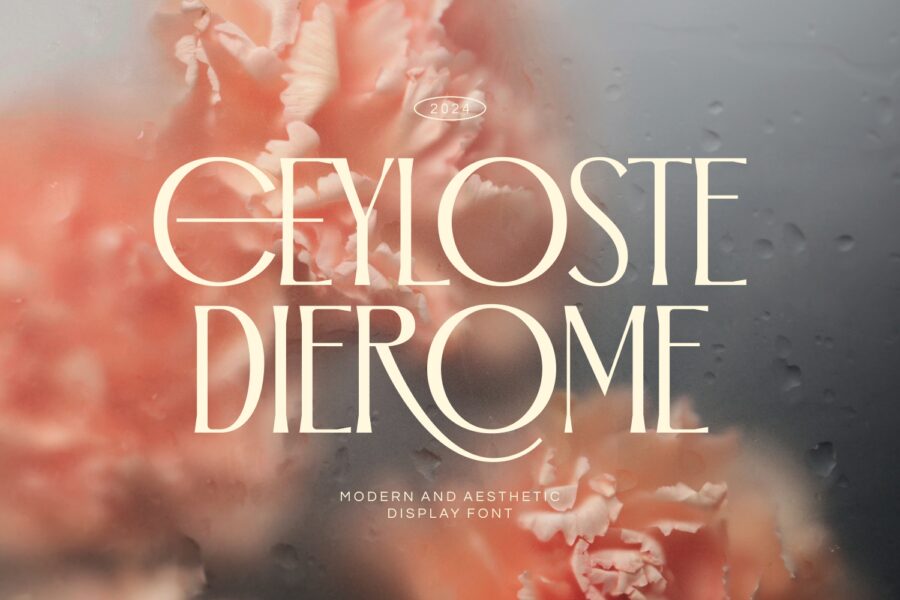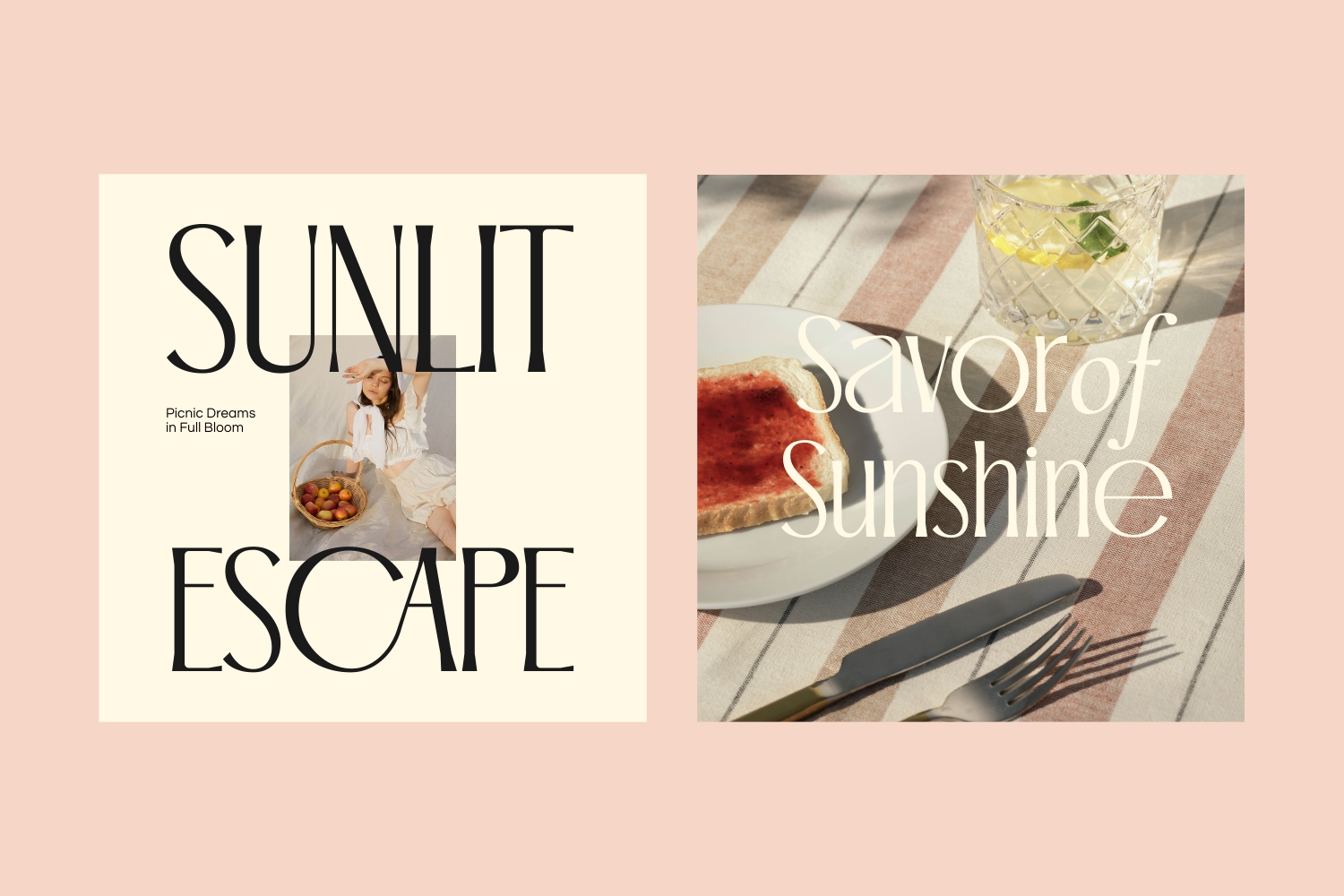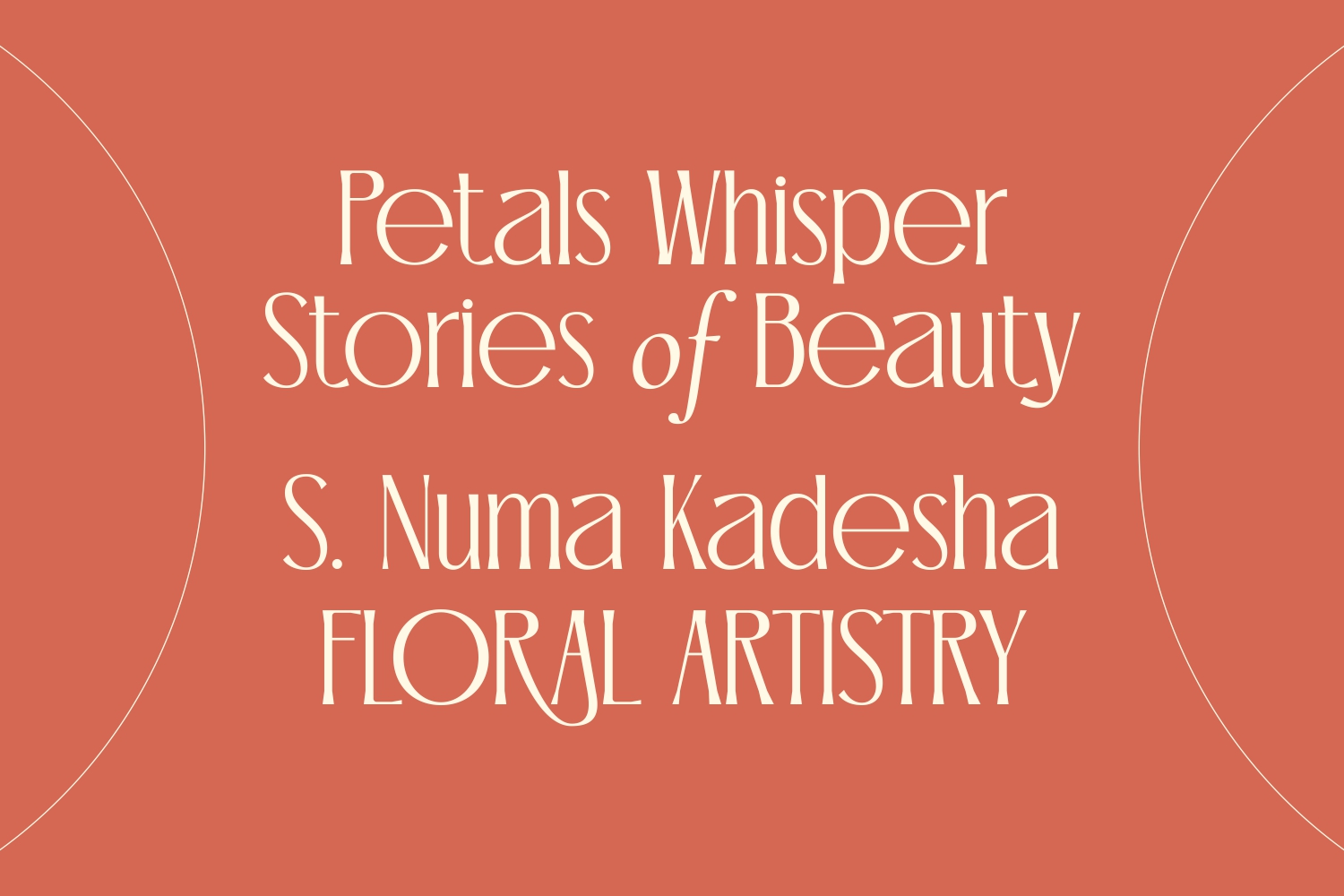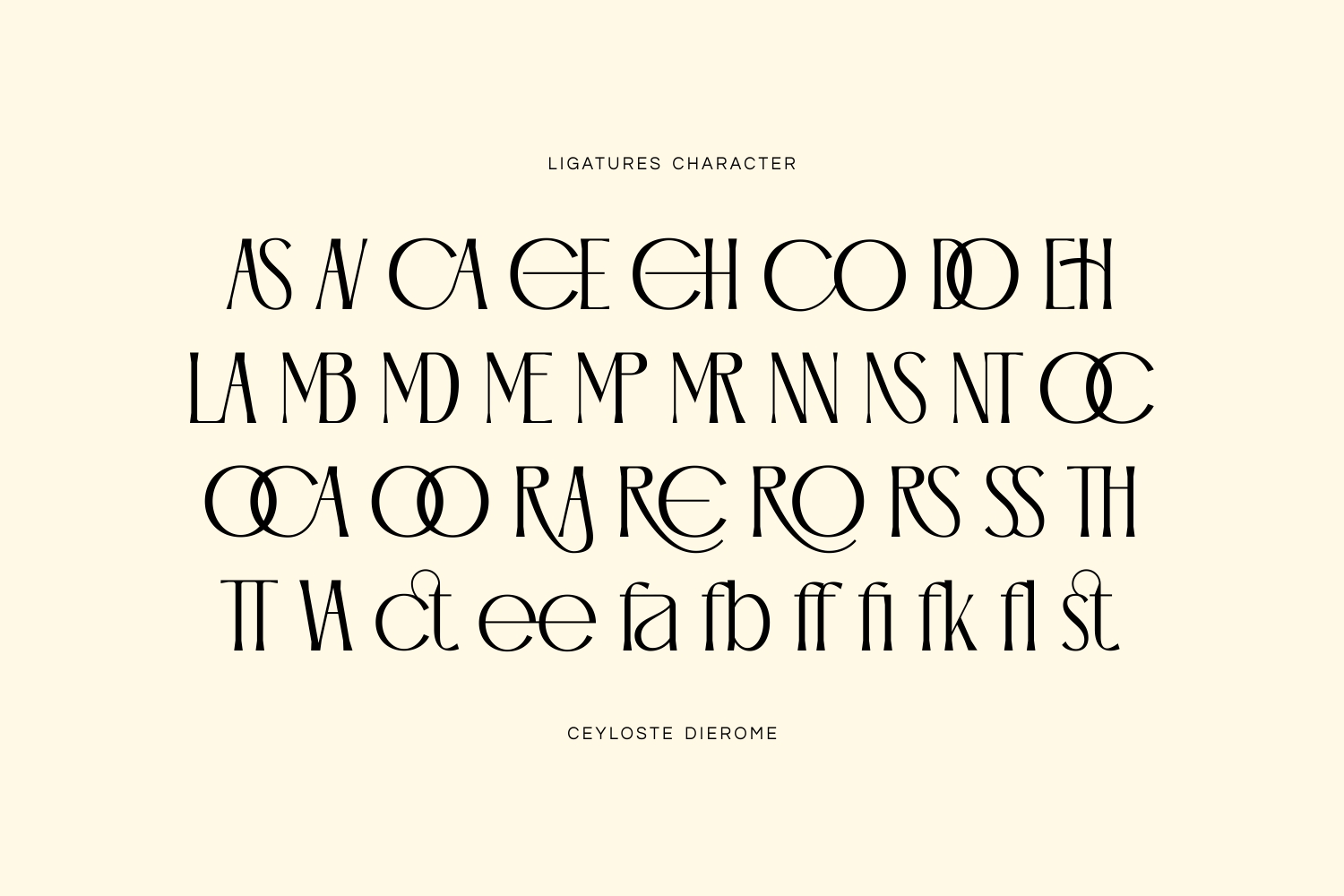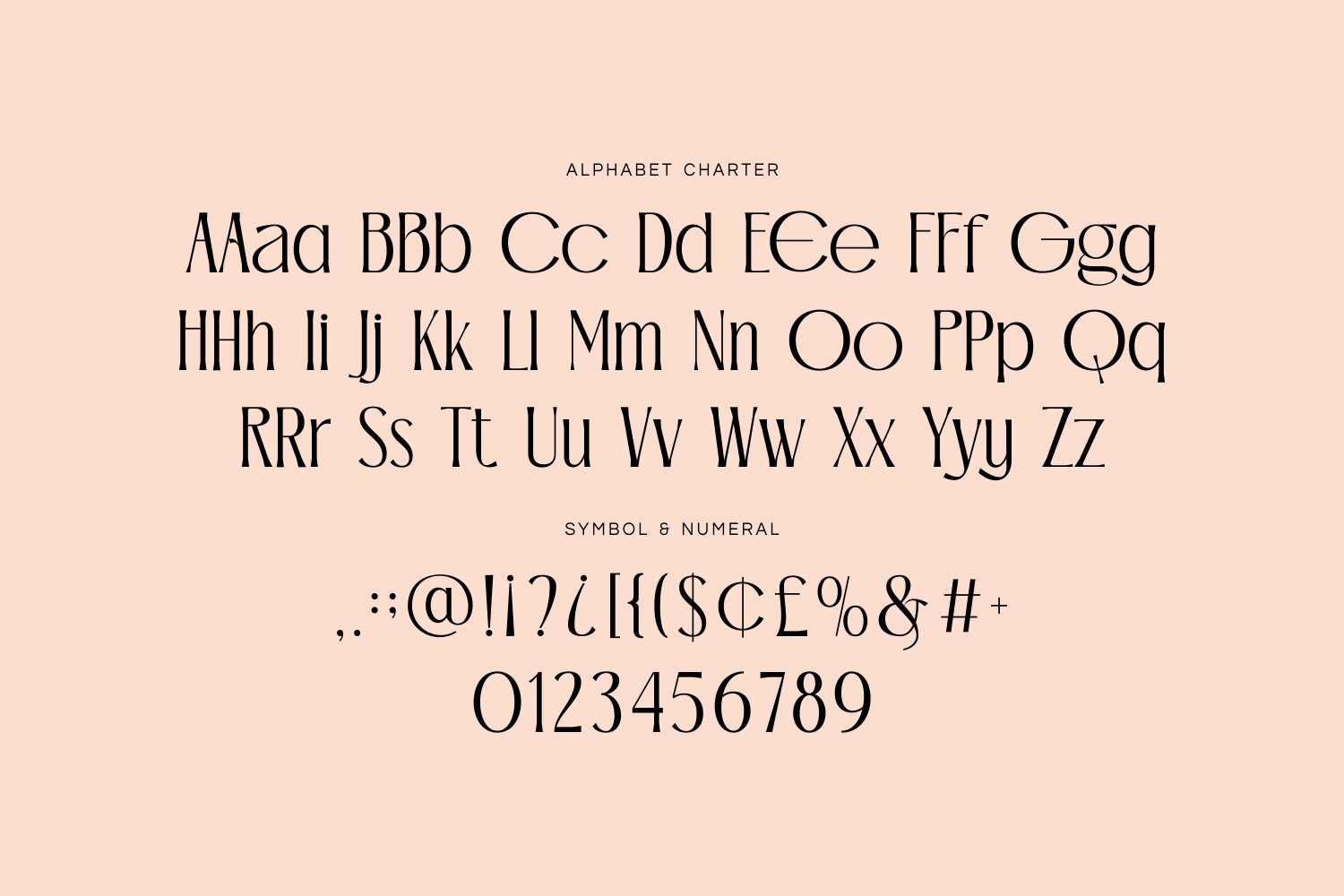
Ceyloste Dierome font is a modern and aesthetic serif display typeface with a refined balance between elegance and creativity. Featuring sleek lines, artistic ligatures, and graceful curves, this font embodies sophistication while maintaining a fresh contemporary look. It’s ideal for branding, editorial layouts, wedding invitations, and luxury packaging, giving any project a timeless yet fashionable presence.
With complete uppercase, lowercase, numerals, punctuation, and stunning ligatures, Ceyloste Dierome offers designers endless creative flexibility. Perfect for magazine titles, fashion campaigns, product logos, or social media designs, this font adds a stylish and artistic charm that captivates audiences with its distinctive and elegant character.
Ceyloste Dierome
Imoodev Studio